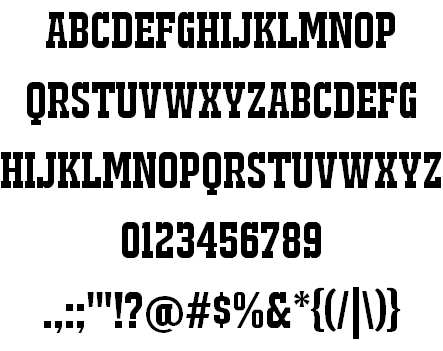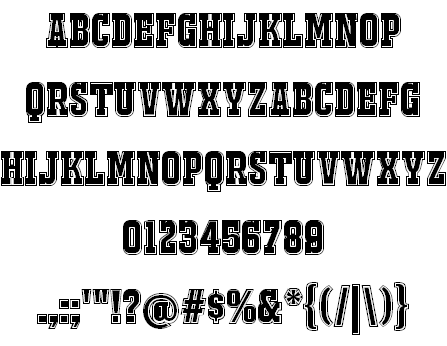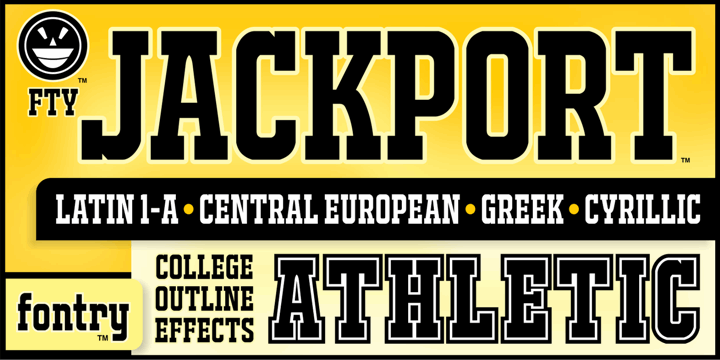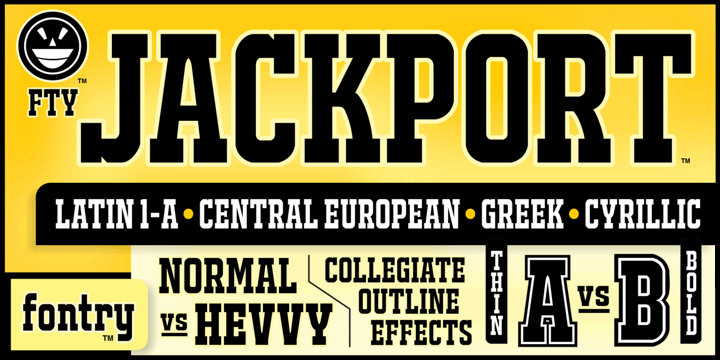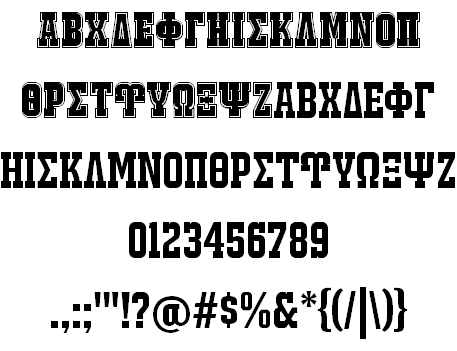
JACKPORT COLLEGE NCV font
OUTLINE GREEK letters in normal UPPERCASE “English” key positions, with REGULAR GREEK letters in lowercase positions. GREEK language characters are also included in all fonts, located in the normal GREEK UNICODE range.